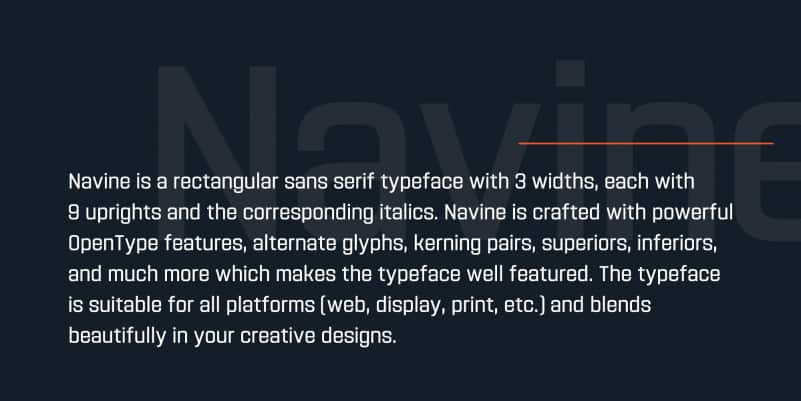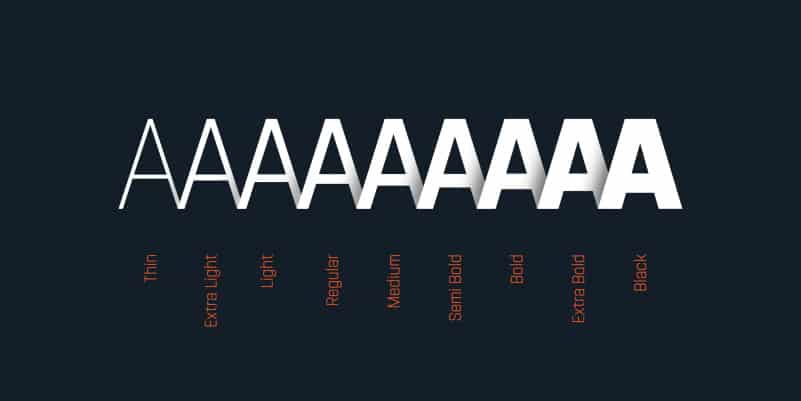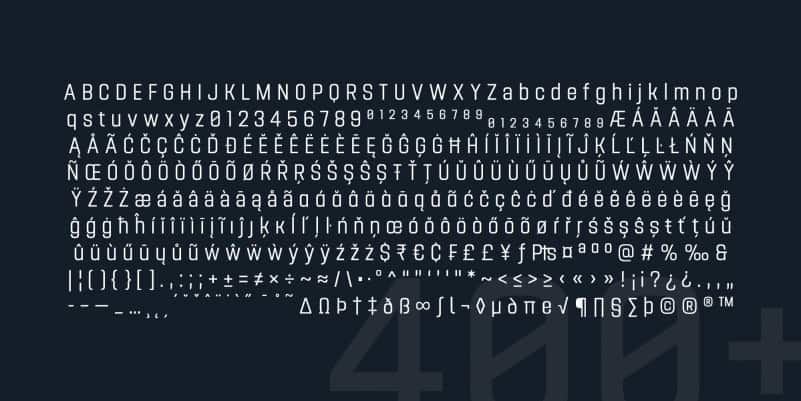
Navine – Sans Serif Font is a rectangular sans serif typeface with 3 widths, each with 9 uprights and the corresponding italics. Navine is crafted with powerful OpenType features, alternate glyphs, kerning pairs, superiors, inferiors, and much more. Navine blends beautifully in your creative designs.